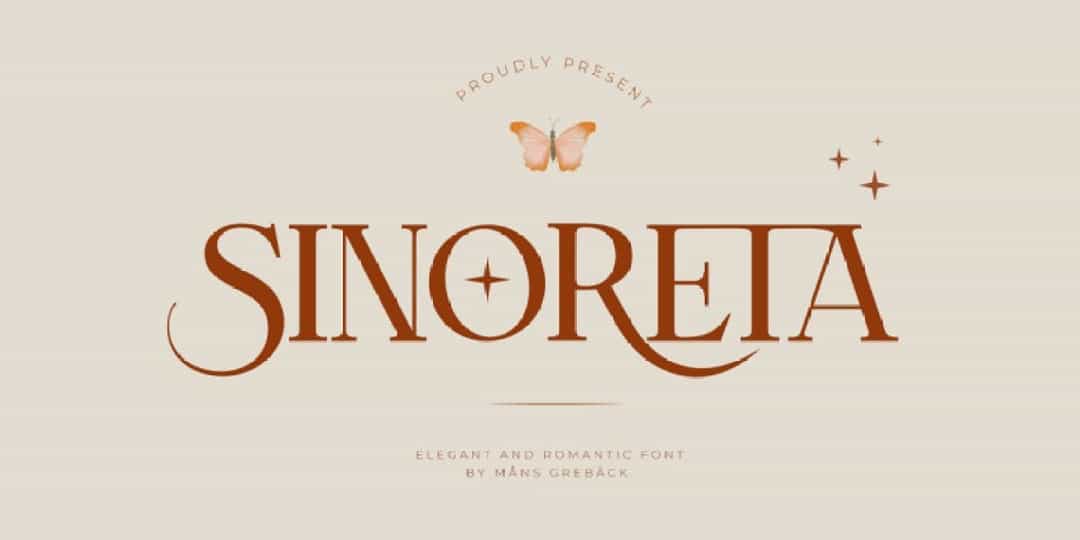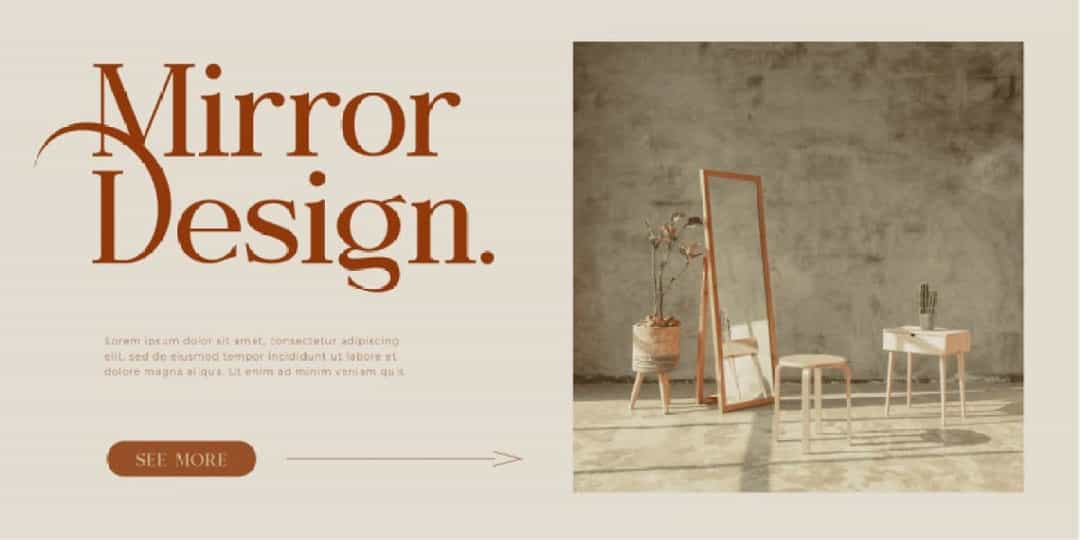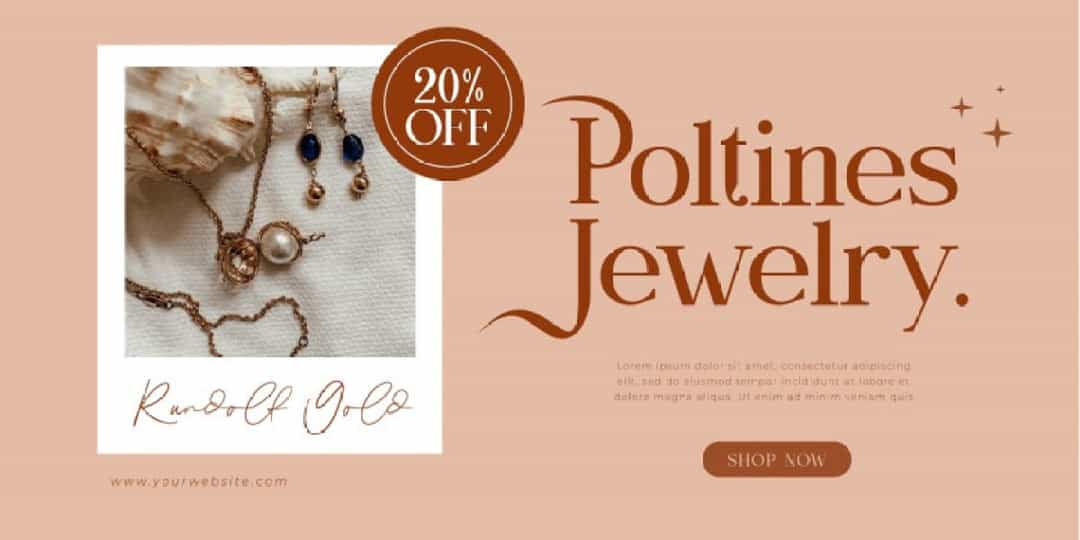
Sinoreta can be described as an old-fashioned serif typeface featuring an eye-catching retro design, adding style and sophistication to any style. With its decorative variations bringing its own special charm, Sinoreta can add a special flair to projects requiring professional typographic appearance such as logos, branding or headlines as well as editorial design projects. Sinoreta will bring classic elegance to any of these endeavors.